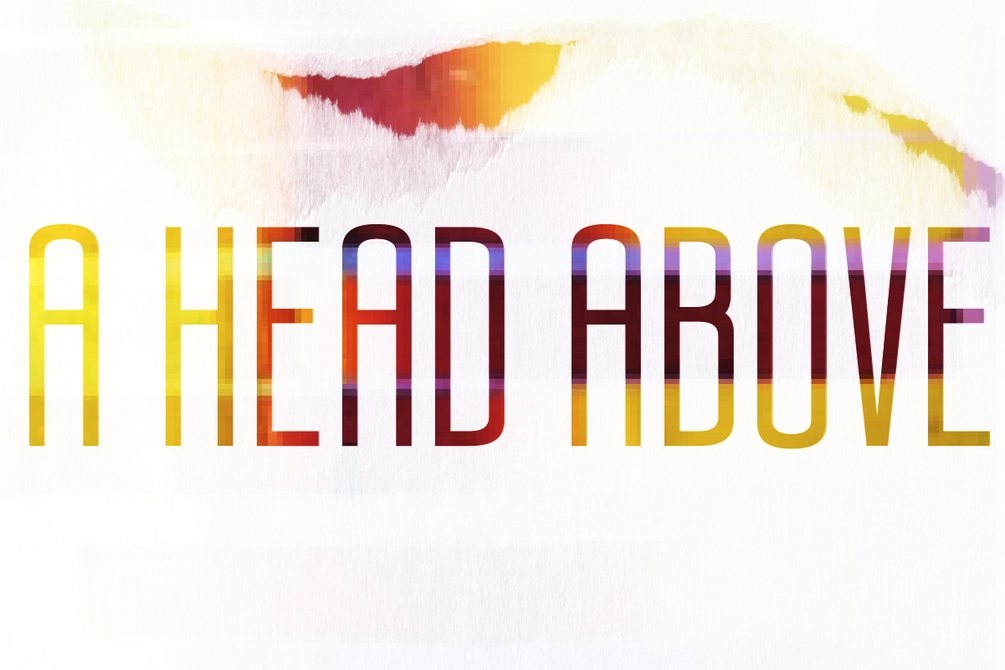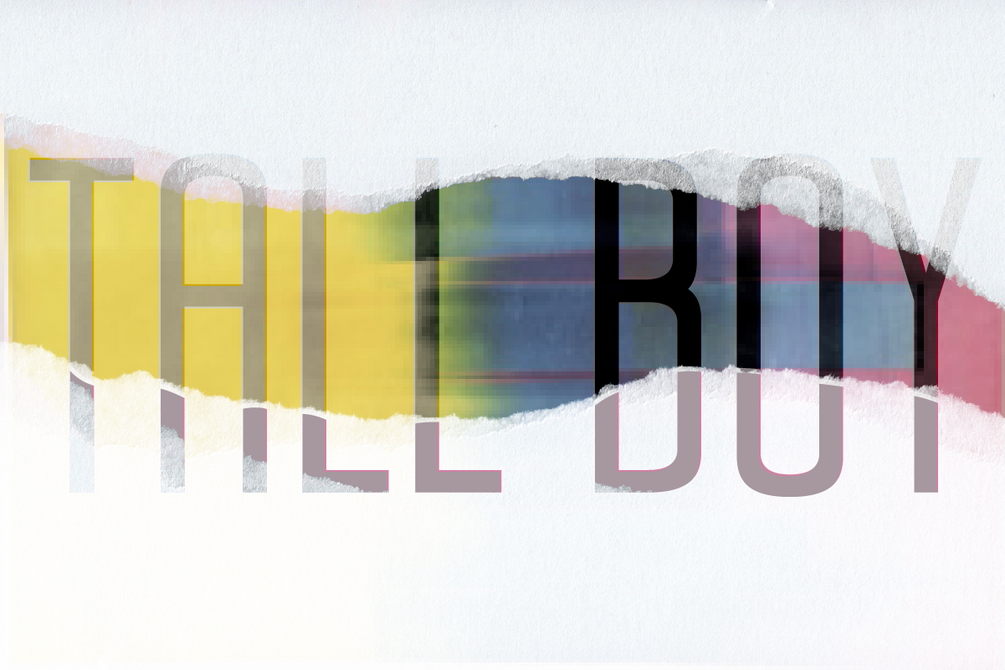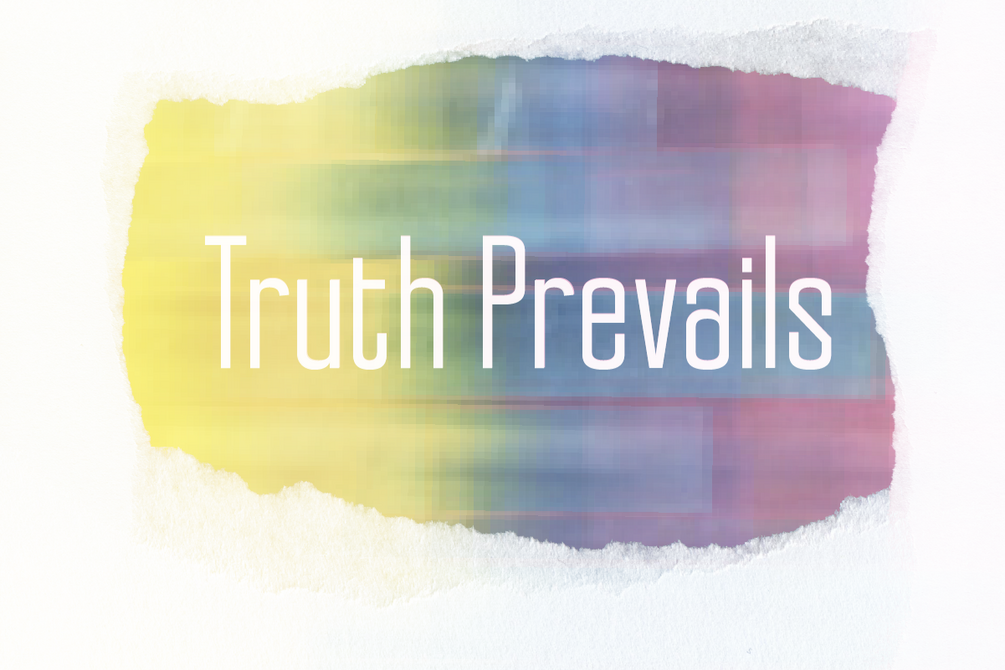
Tall Boy Typeface
Tall Boy is a headline typeface inspired by the classic poem "A Song on the End of the World" by Czesław Miłosz. Its long, extended forms capture the beauty of a world enduring even to its end. Designed to accentuate its height, Sote commands attention, filling space with its bold presence. Perfect for headlines and making a lasting impression, Sote is here to stay, even when the world fades away.